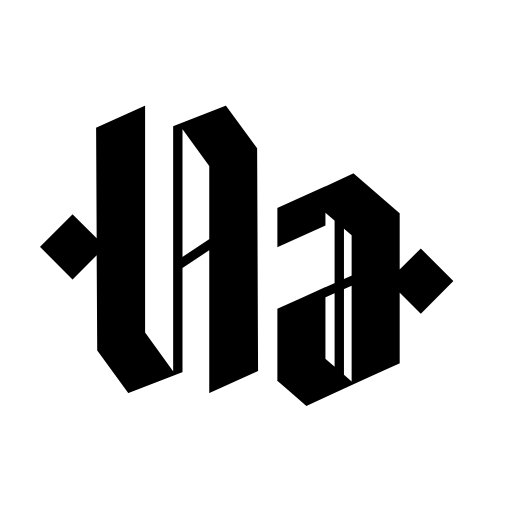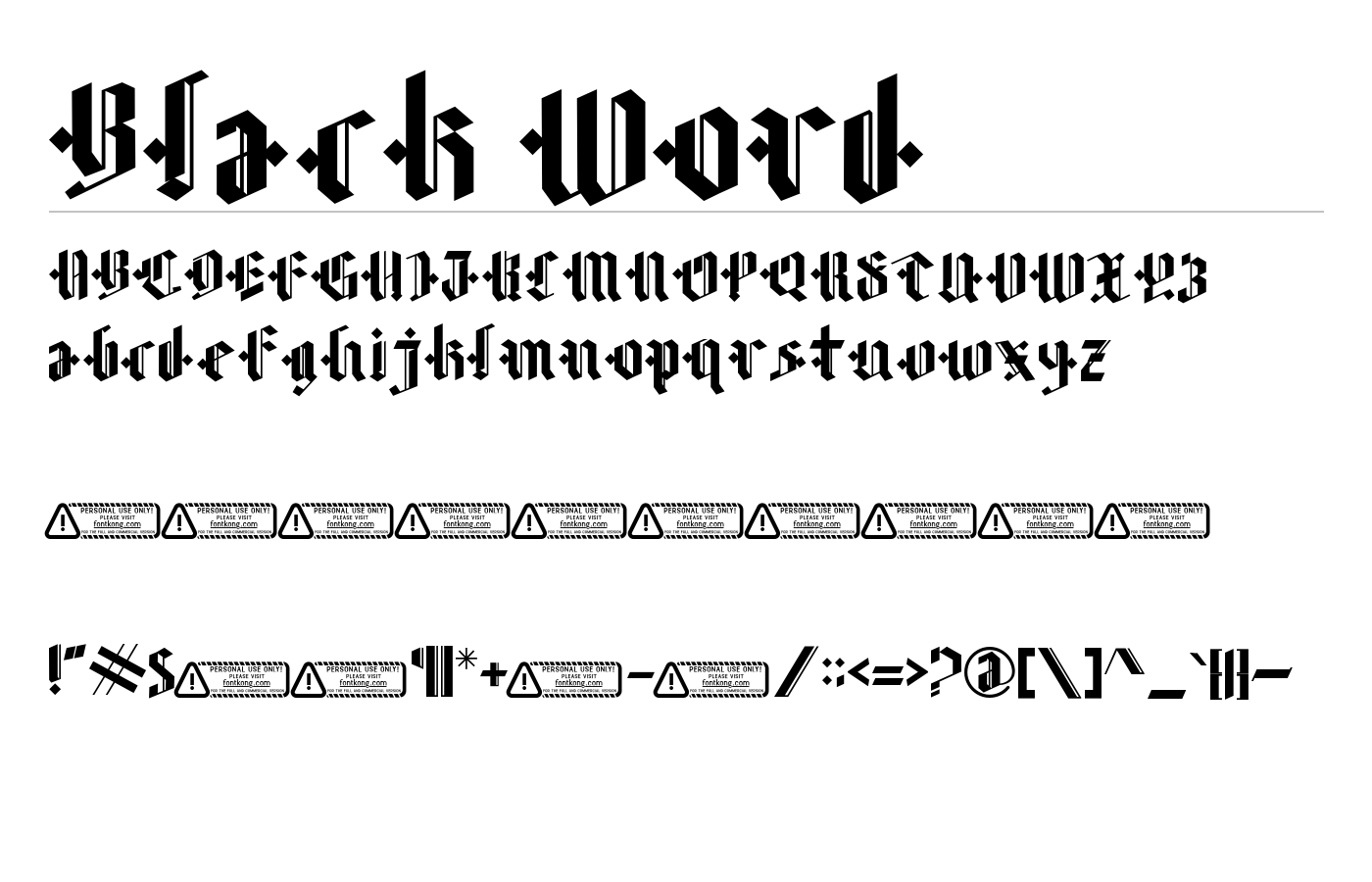
Black Word Font is a bold, blackletter-style typeface with a strong, geometric structure and sharp edges, combining modern flair with traditional Gothic calligraphy. Its heavy weight and condensed letterforms make it perfect for striking headlines, logos, and branding that seek a dramatic, vintage, or edgy aesthetic. This font’s distinctive ornamental details and dense texture work best in designs that aim for a historic or rebellious mood, especially in fashion, music, or tattoo-related projects.
Black Word Font
About Black Word Font